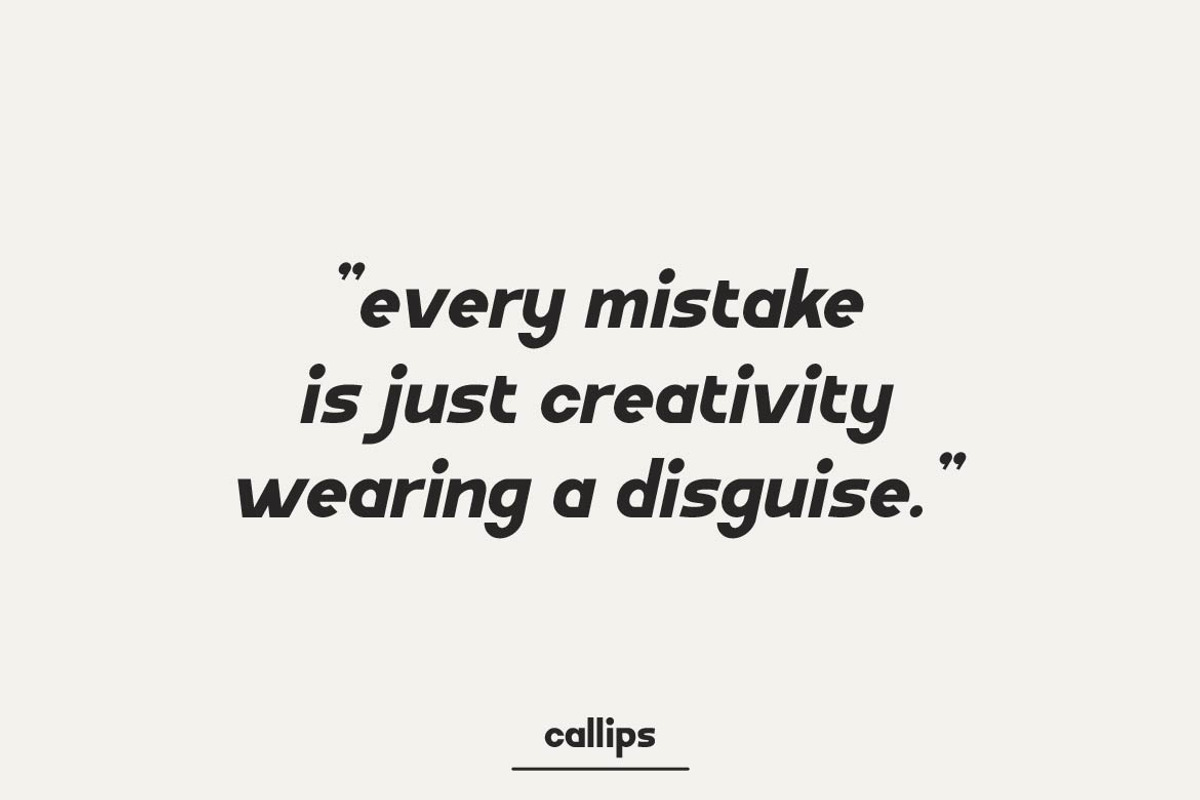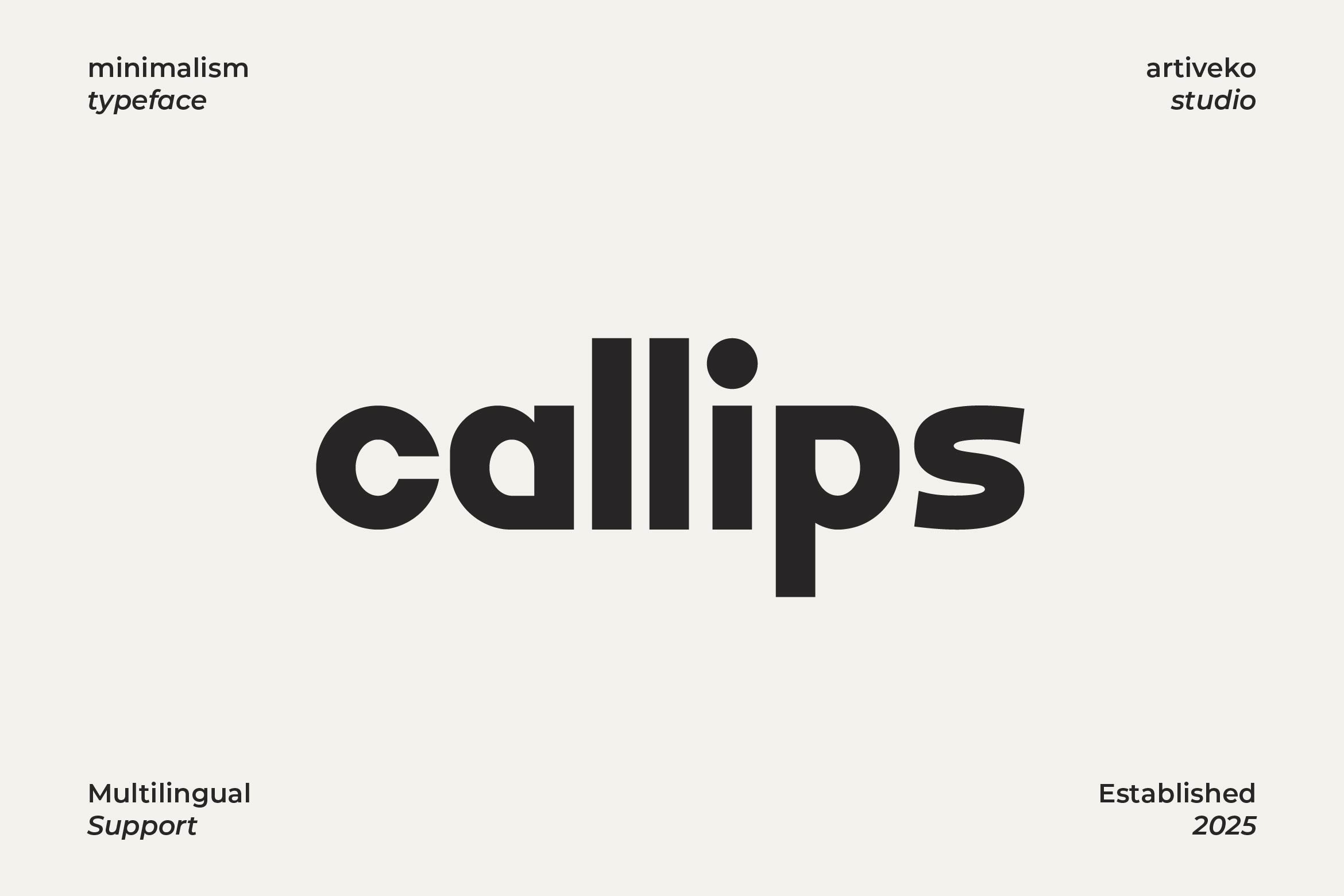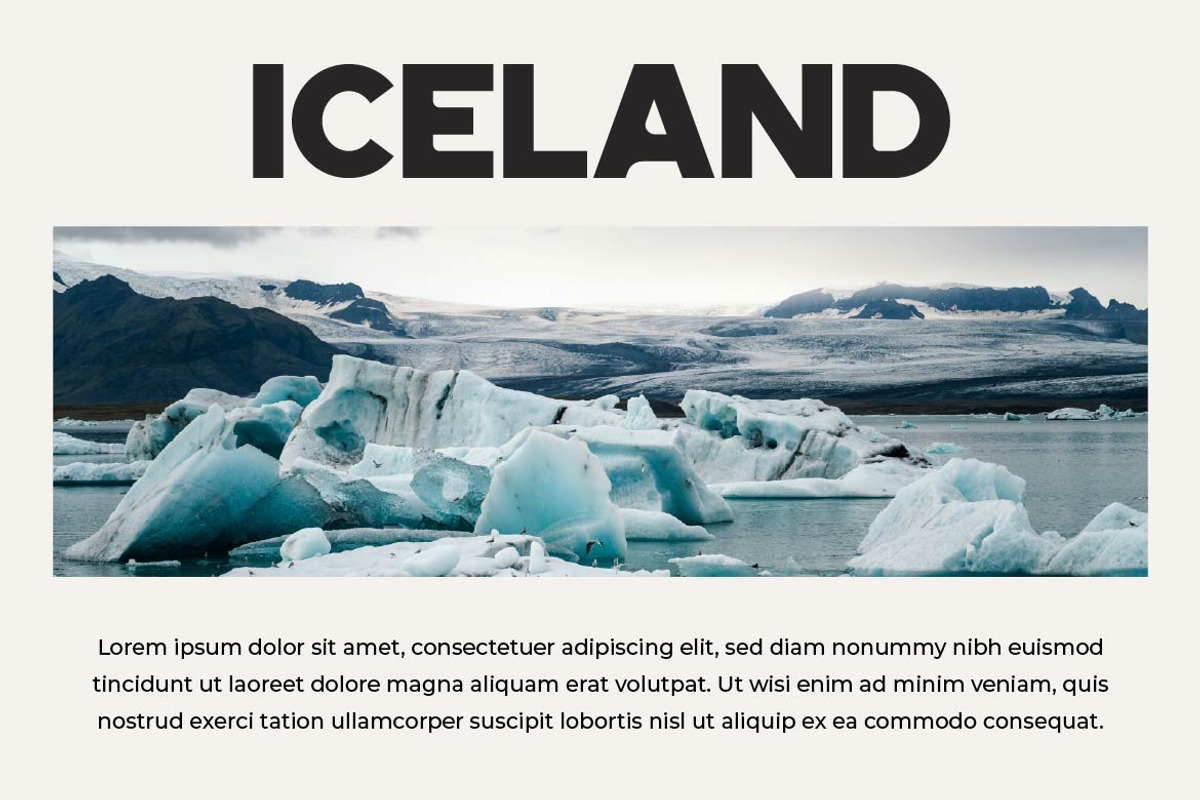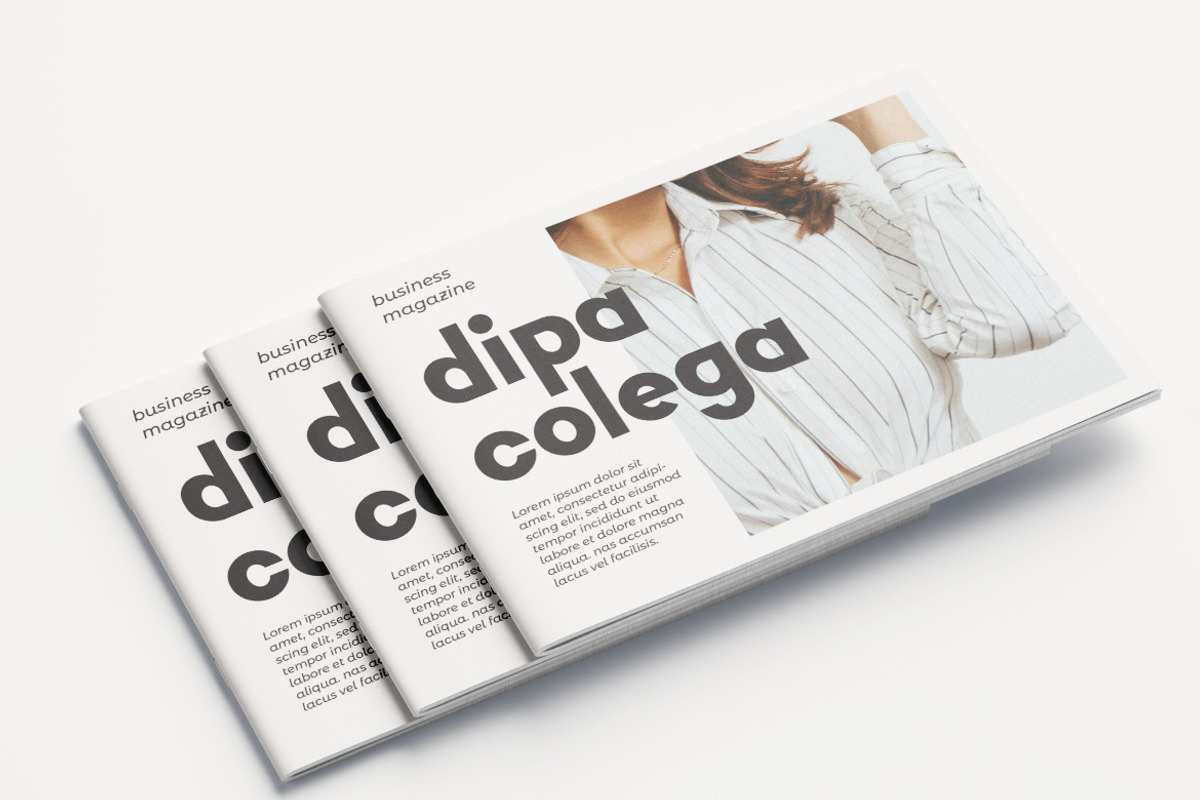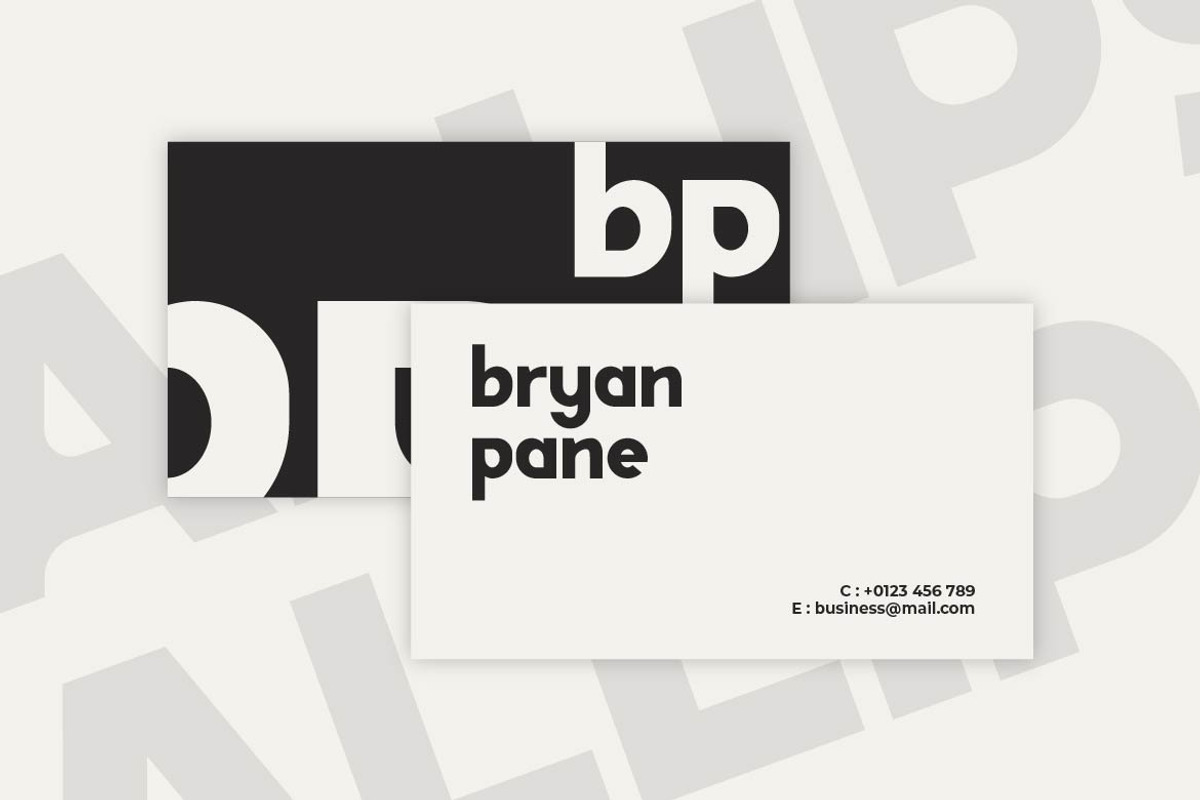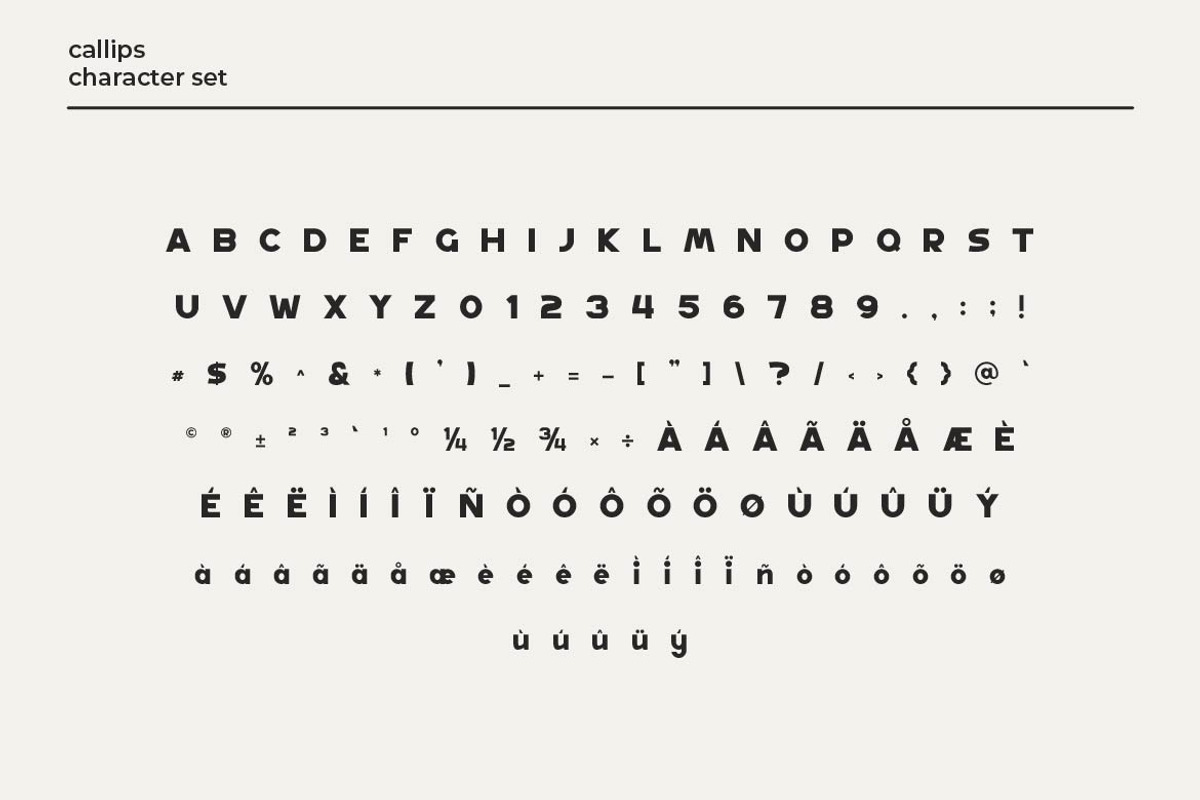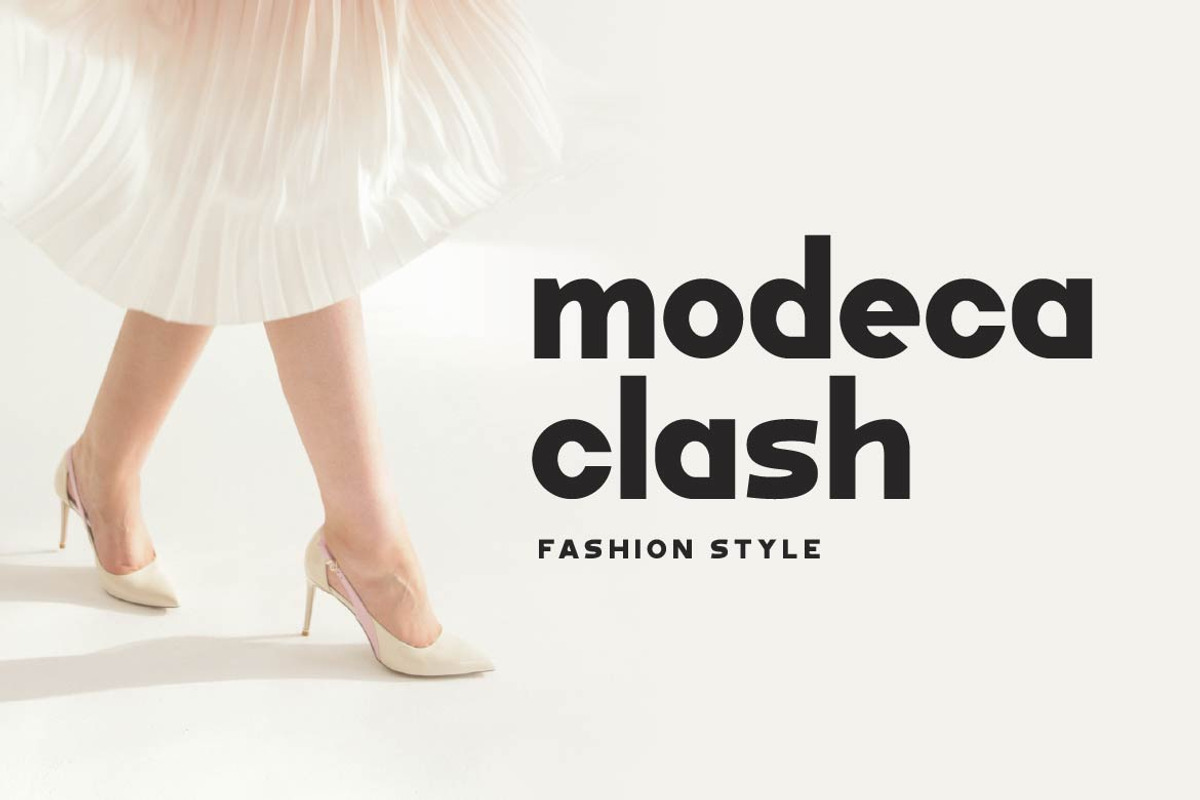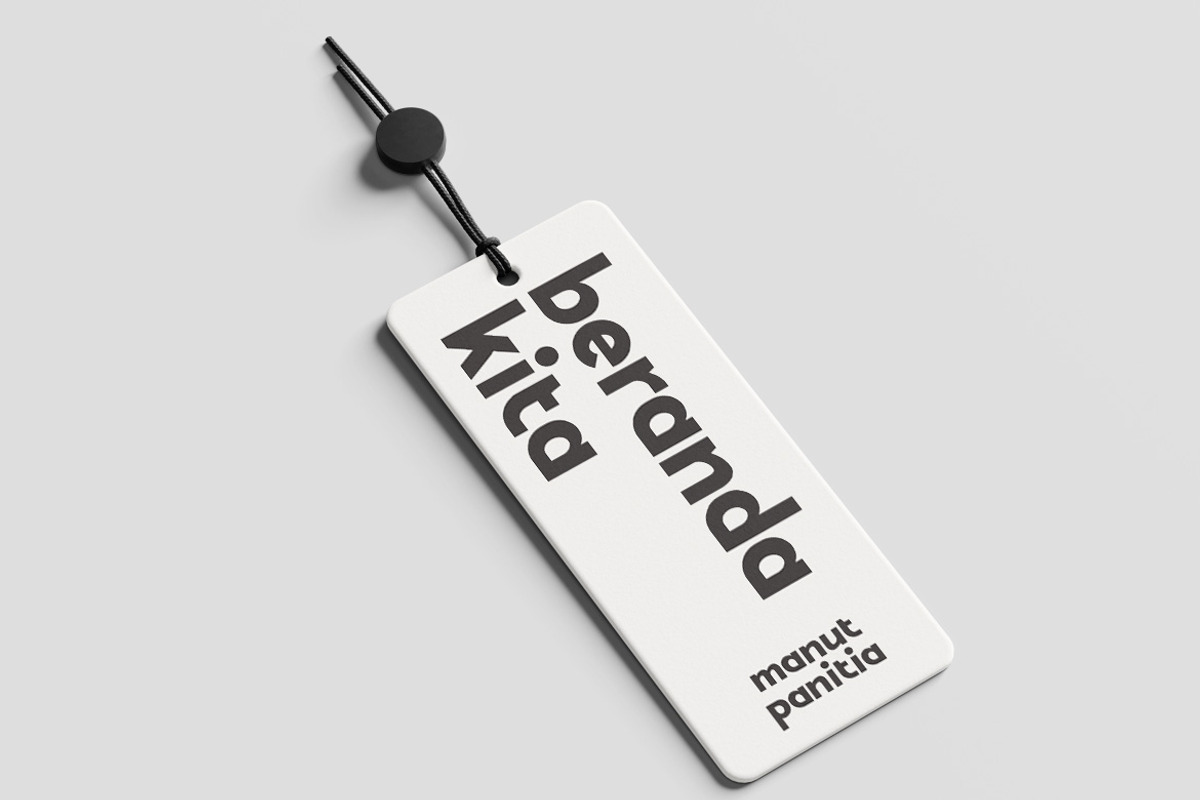
Callips - Minimalist Logo Font
Callips is a sleek and contemporary typeface crafted for designers who value clarity, elegance, and versatility. With clean geometric lines, balanced proportions, and a subtle modern flair, Callips is ideal for creating high-end brand identities, professional logos, packaging, website headers, and editorial layouts that demand a refined yet approachable look.